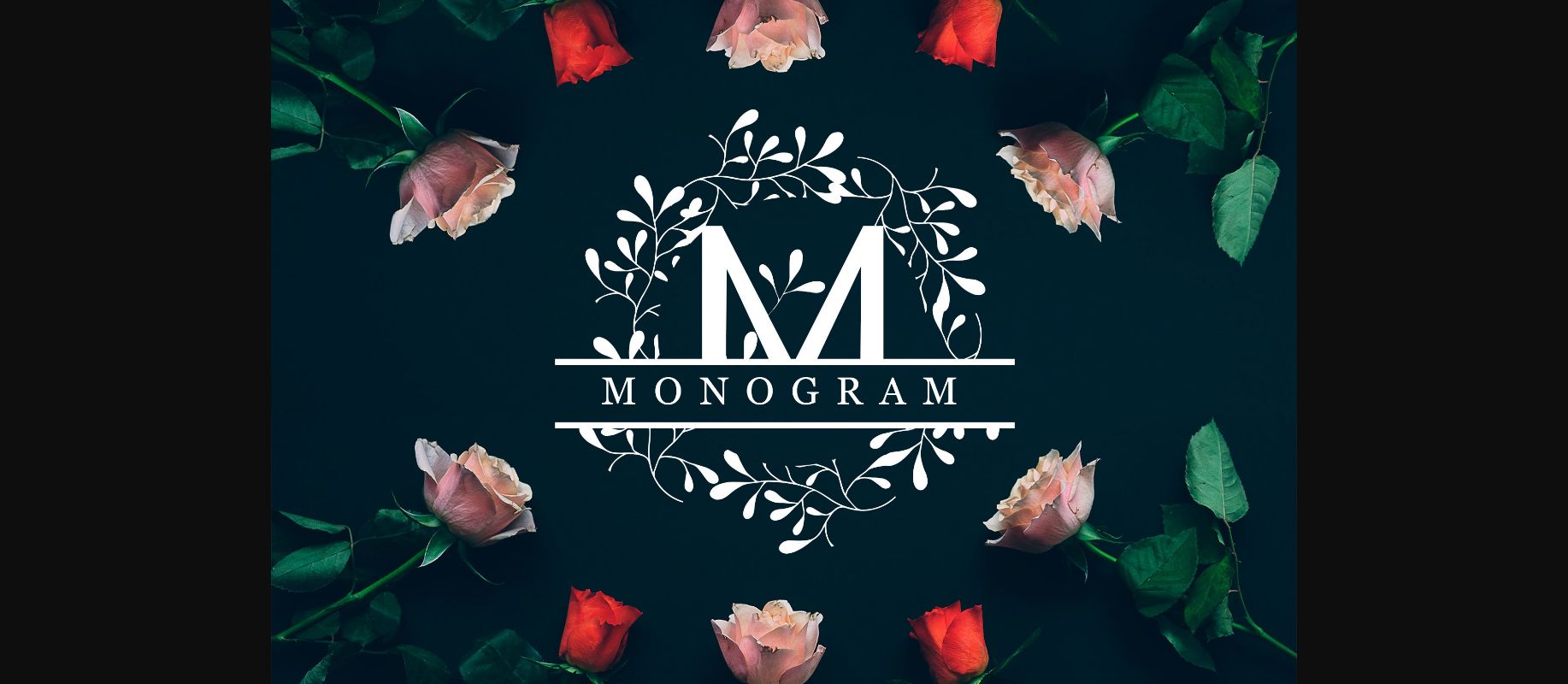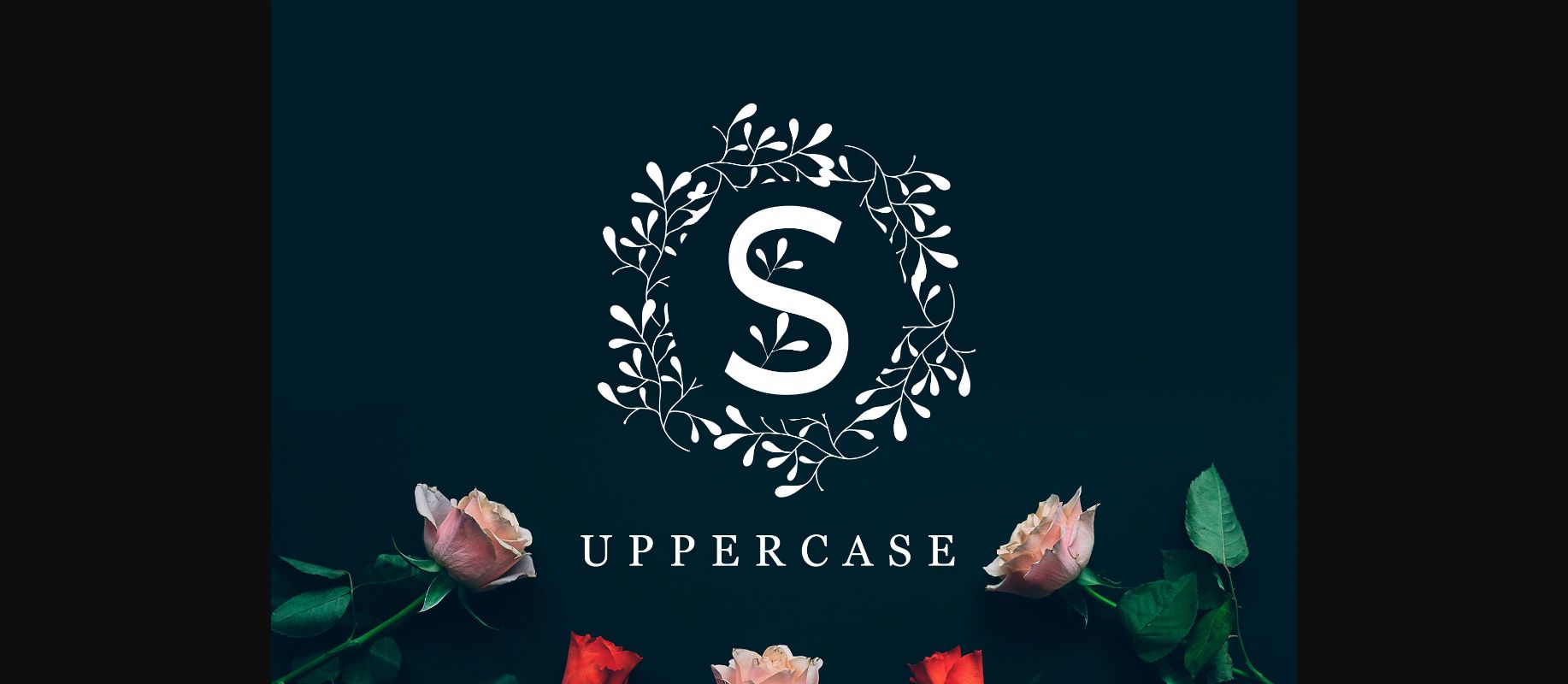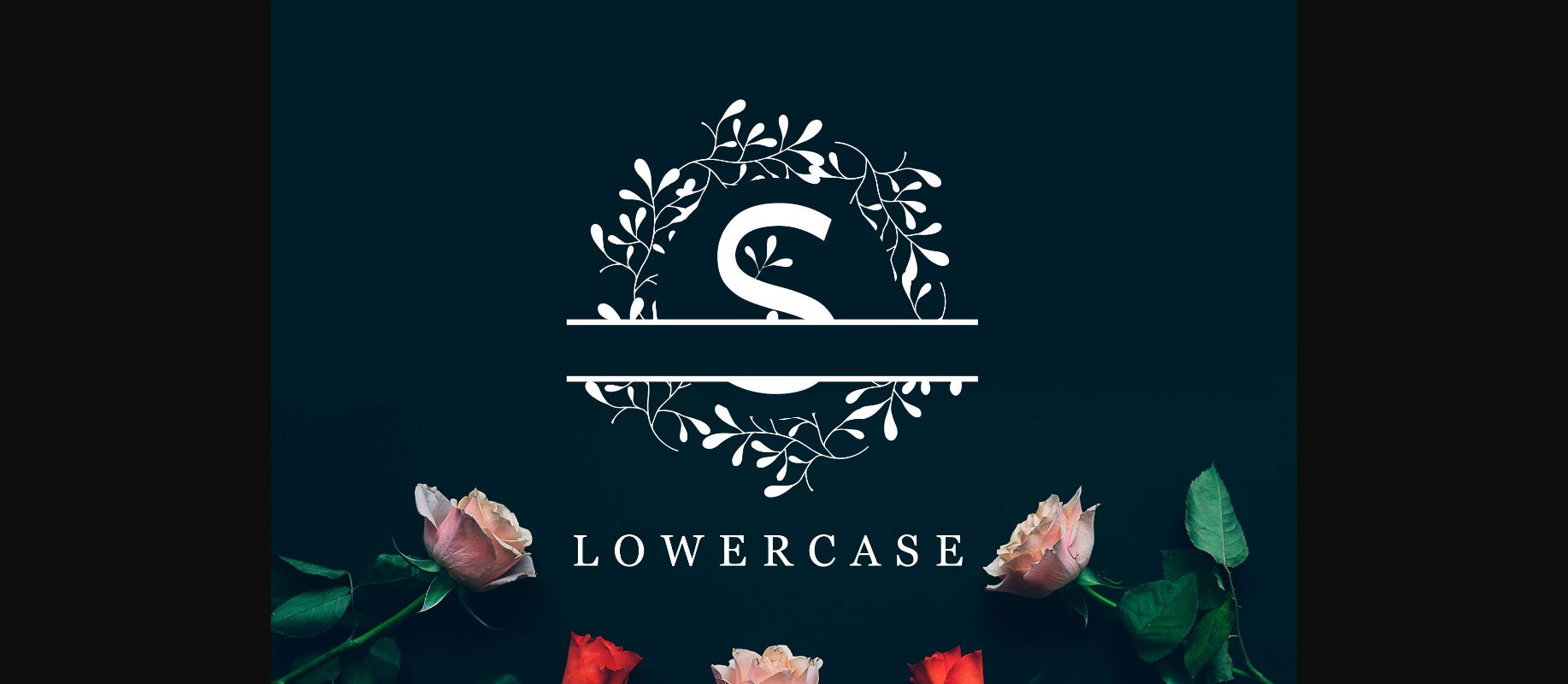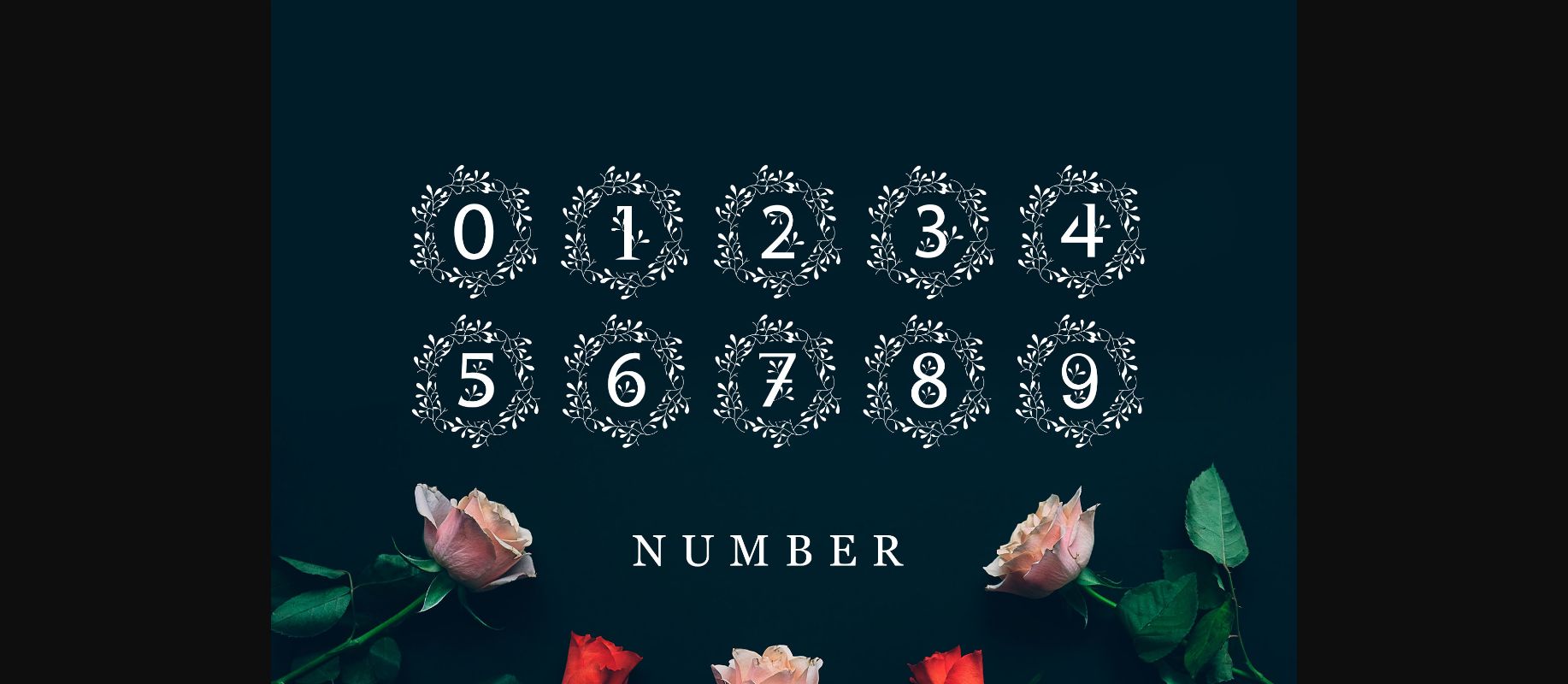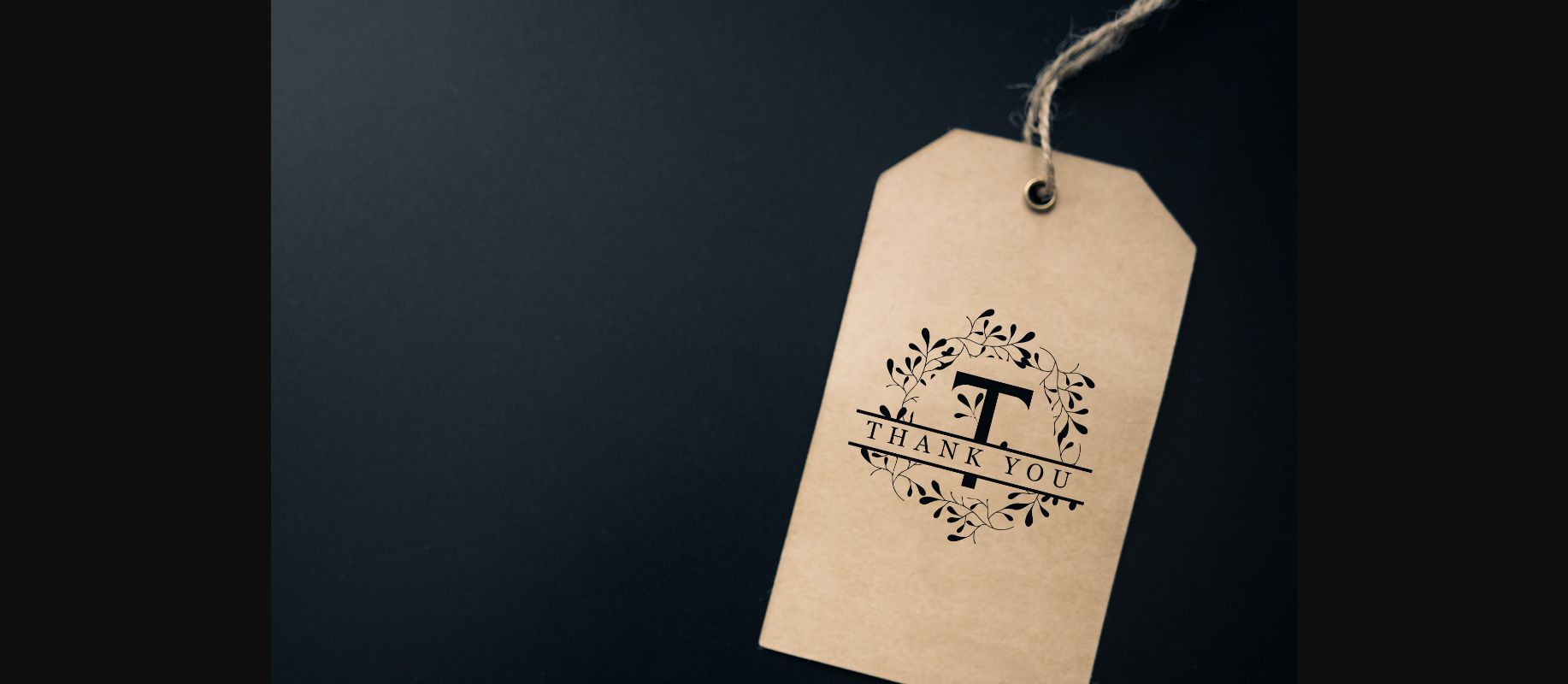
About Monogram Font
Monogram is a beautiful and fresh decorative font with a circle of leaves surrounding every character. This font is perfect for logos, branding, crafts, social media posts, eye-catching, business cards, and other creative projects.